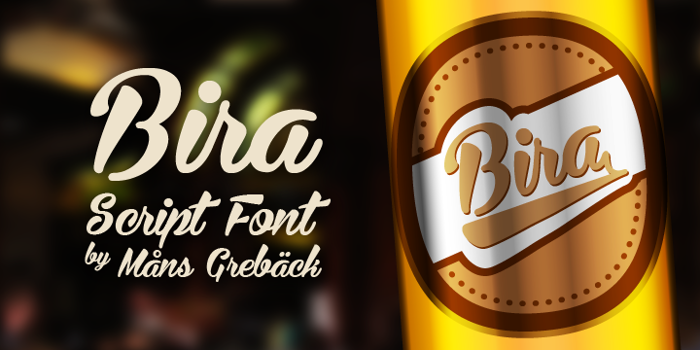
Bira Font
j'aime cette police de caractères tellement!!!!
@babycakes154 "I like this font so much!!!!"
love it 😄
The poster is amazing as well!
thxs ima tattoo it on my sis
nice
So swirly <3
i lovee it 😄